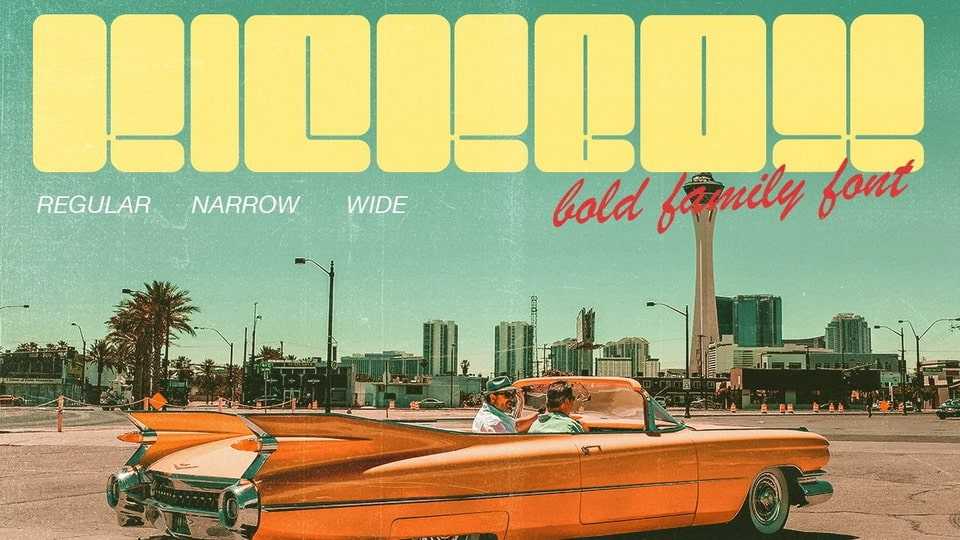
Download Kickbox font, a display typeface designed to infuse your brand with a burst of retro charm and a dash of pop culture. Seamlessly blending boldness and authenticity, they captivate the hearts of your audience, adding a unique and irresistible touch to your brand identity.